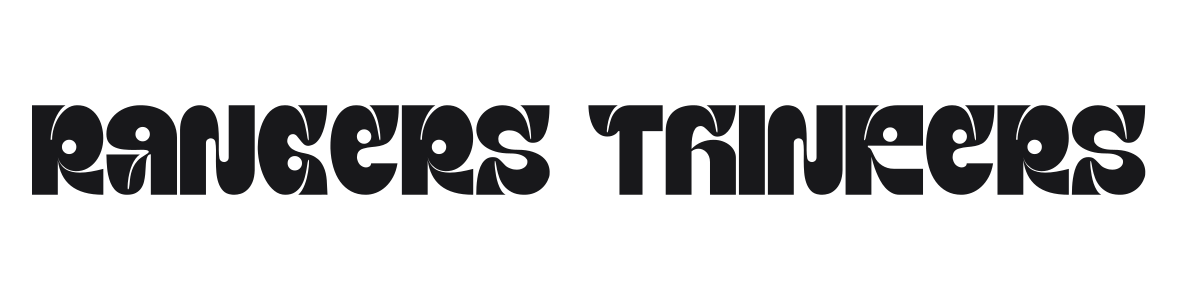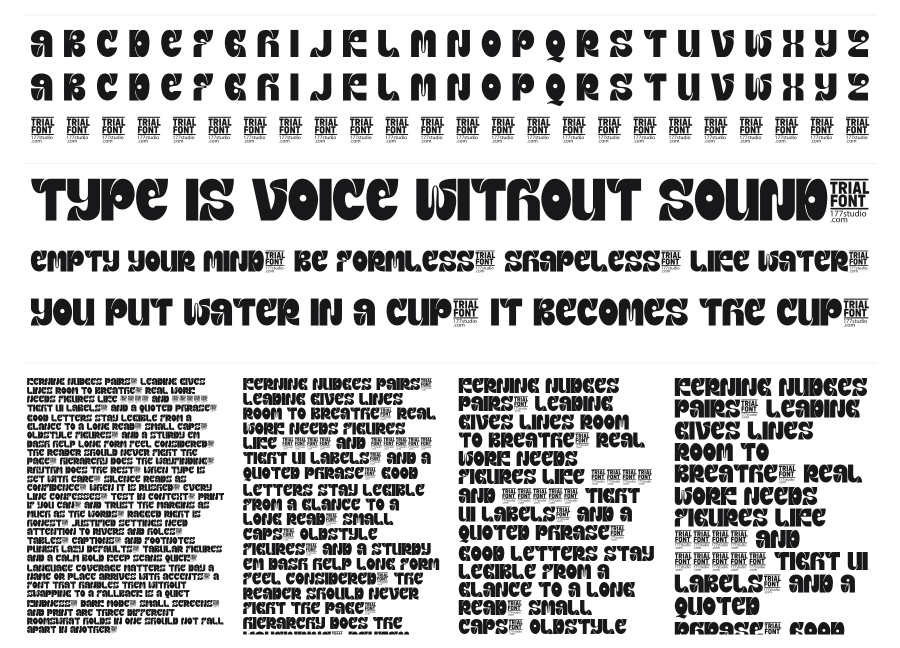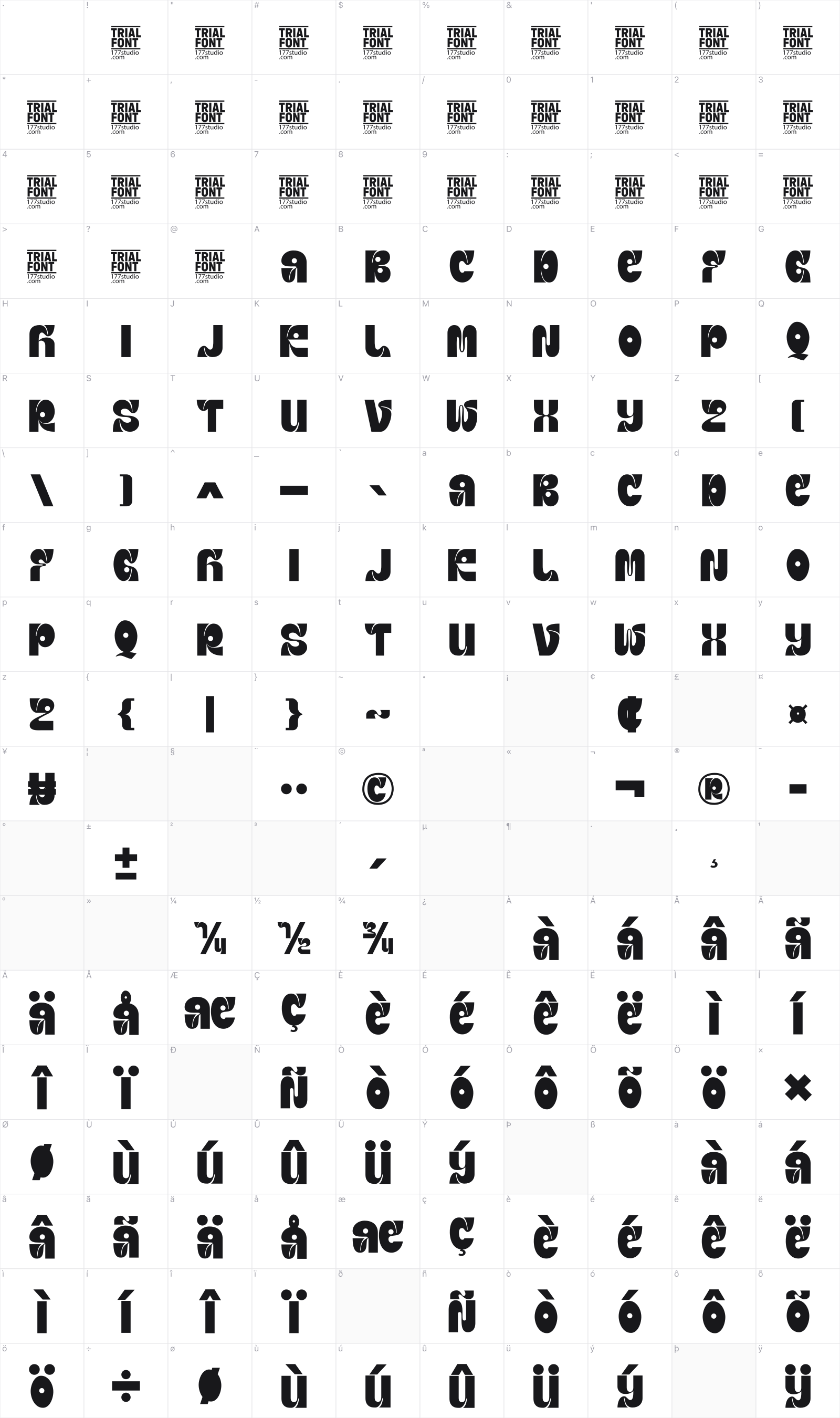
Rangers Thinkers
Rangers Thinkers is a heavy retro display font channeling the psychedelic grooviness of late 1960s and early 70s pop typography. Its bold, tightly packed characters feature large circular counters and dramatically curved strokes that collapse internal space into small teardrop cutouts, giving the text a dense, energetic mass. It hits hard on posters, album covers, and any project that needs unapologetic vintage personality.